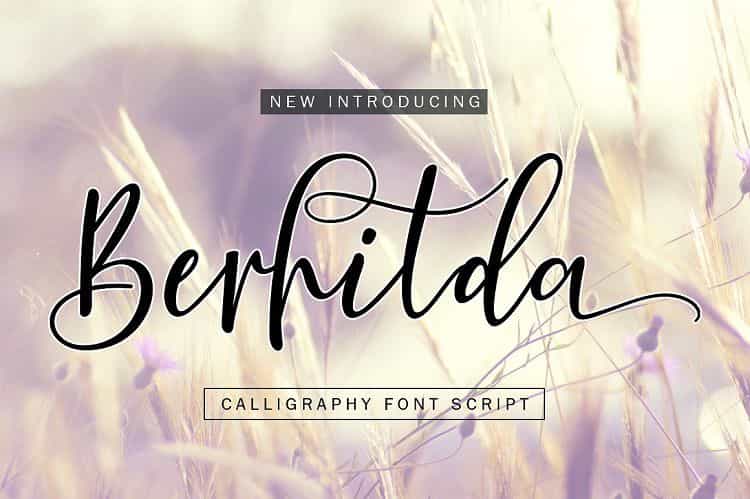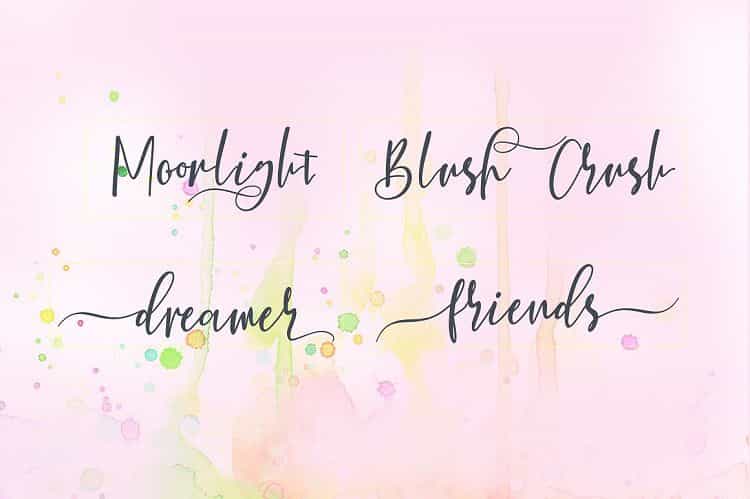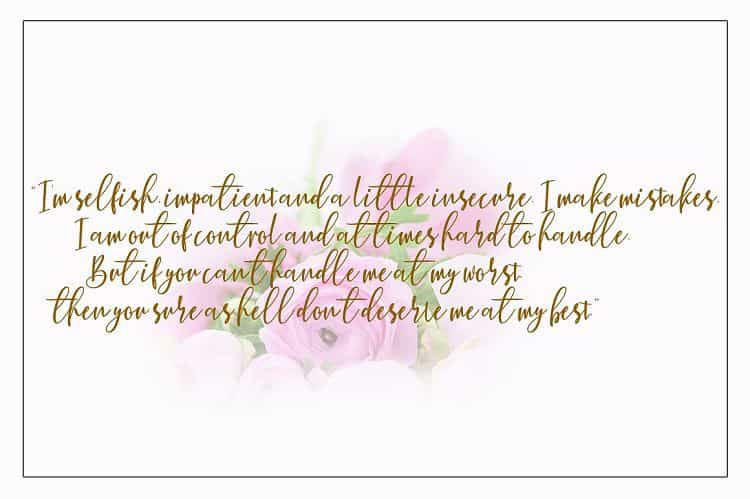
Discover Berhilda Script Font, part of the Calligraphy collection—a versatile and unique font perfect for adding a personal touch to your projects. Download it for free and enjoy crafting designs with style, from invitations to social media posts. This font is available exclusively for personal use, giving you the freedom to create without limits. Unlock your creativity with Berhilda Script Font today!
Berhilda Font– a new fresh handmade calligraphy typeface. You can make the best design ever and be different from others. This font is ideal for branding, wedding invites, magazines, mugs, business cards. Quotes posters and many more you can buy it to try first if you want this font.